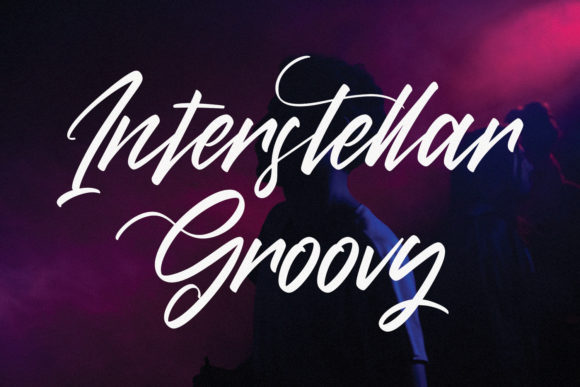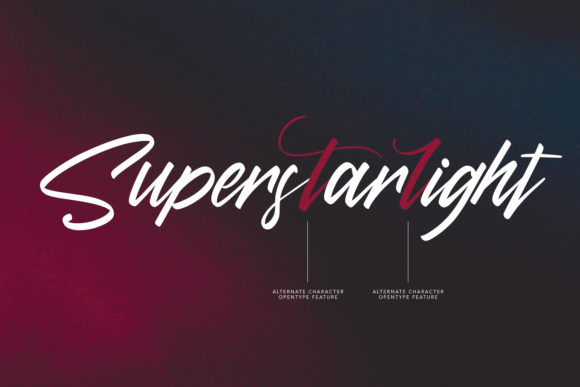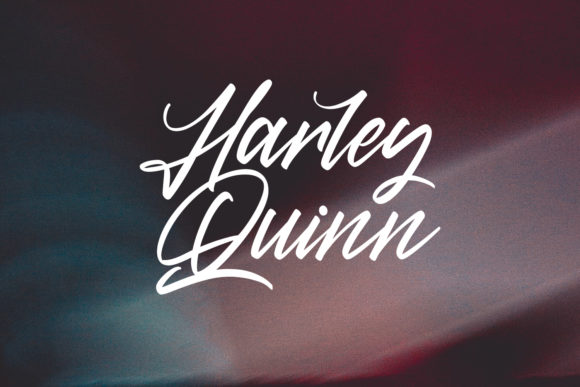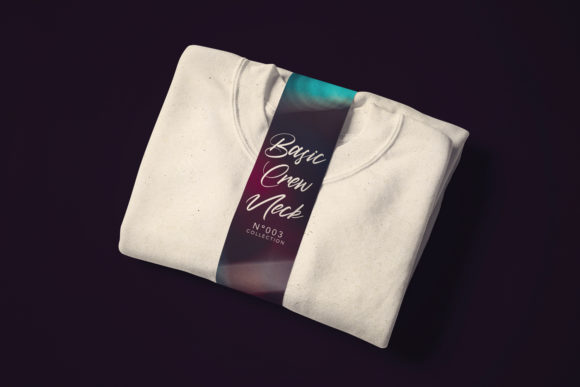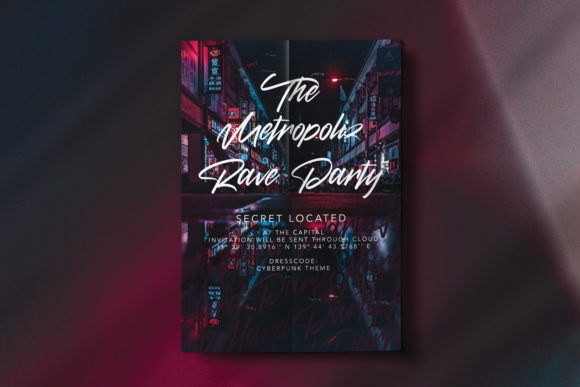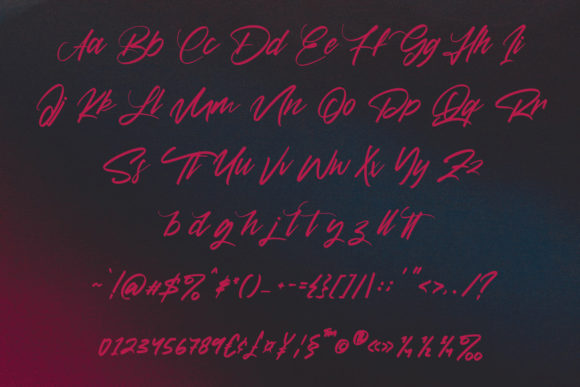
Introduction to Diettersen Font
Diettersen is an exquisite, flowing handwritten font.
Fall in love with its incredibly versatile style and use it to create gorgeous wedding invitations, beautiful stationary art, eye-catching social media posts, and much more .
Key Features of Diettersen Font
Why Choose Diettersen Font?
Diettersen Font offers exceptional quality and versatility, making it a valuable addition to your design toolkit. Whether you’re creating for personal projects or commercial use, Diettersen Font delivers professional results.